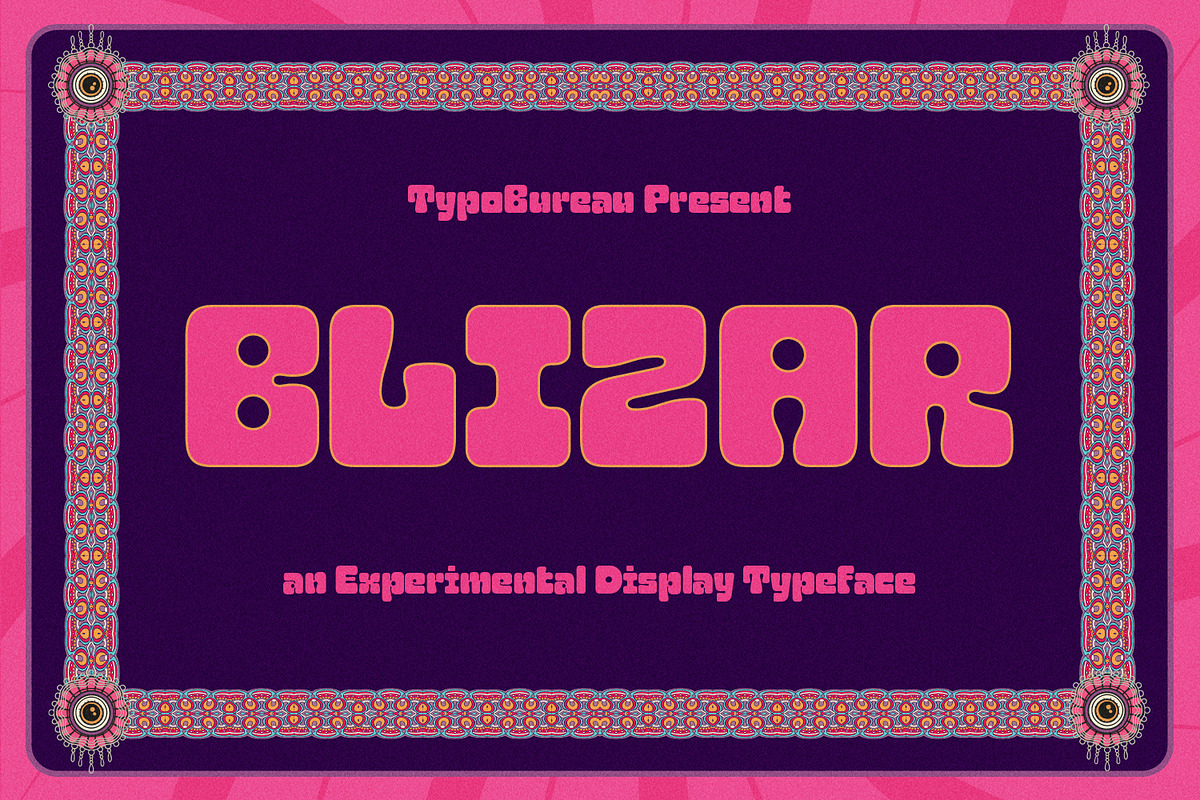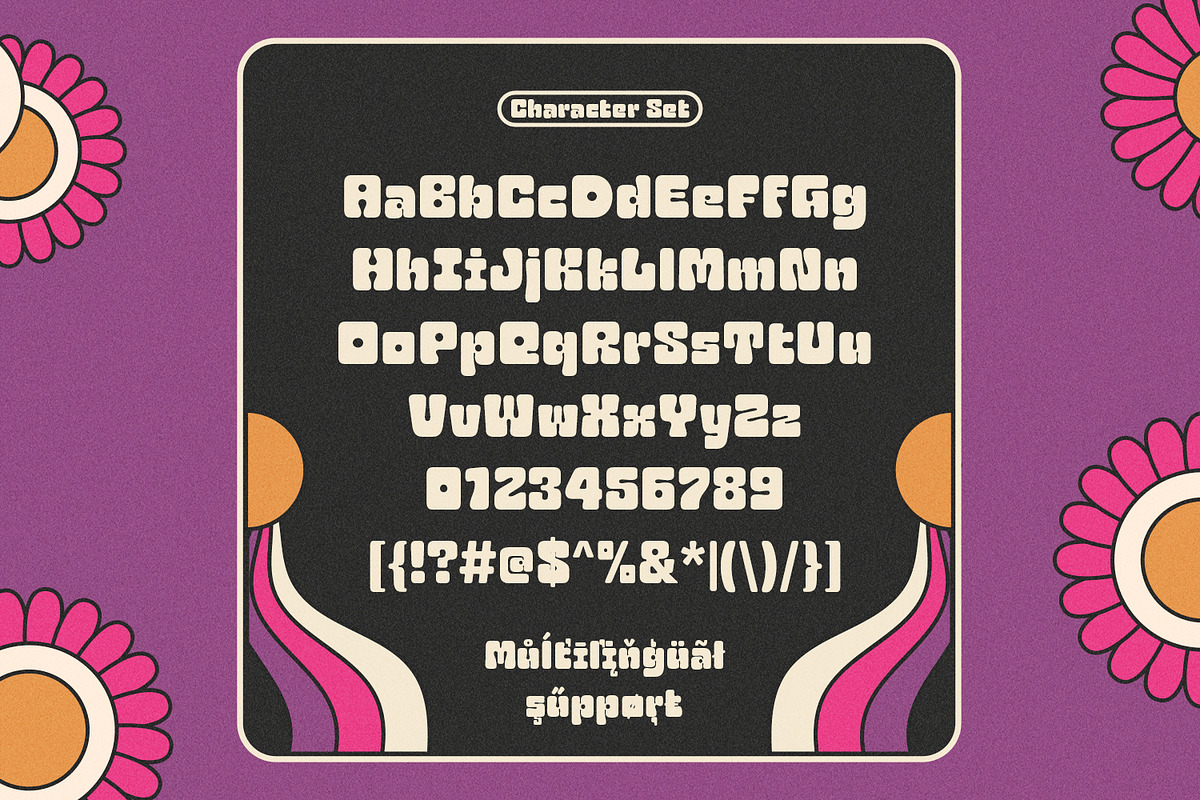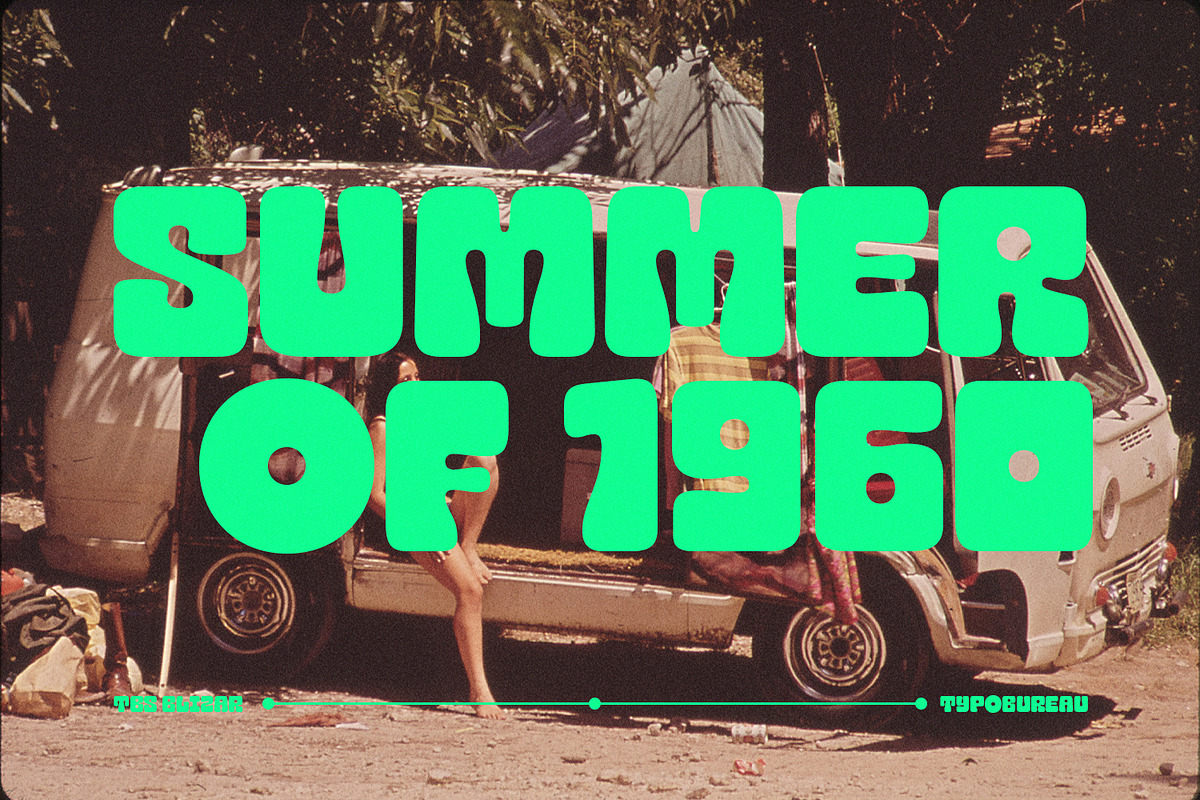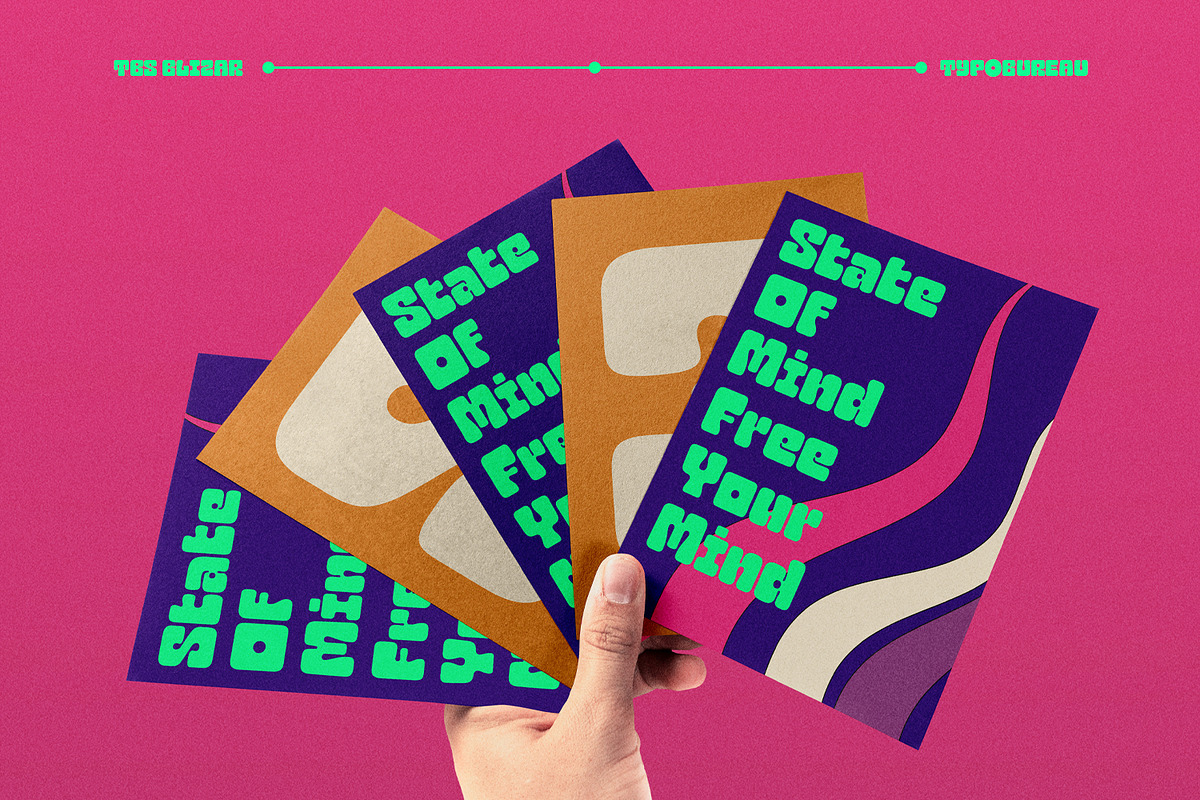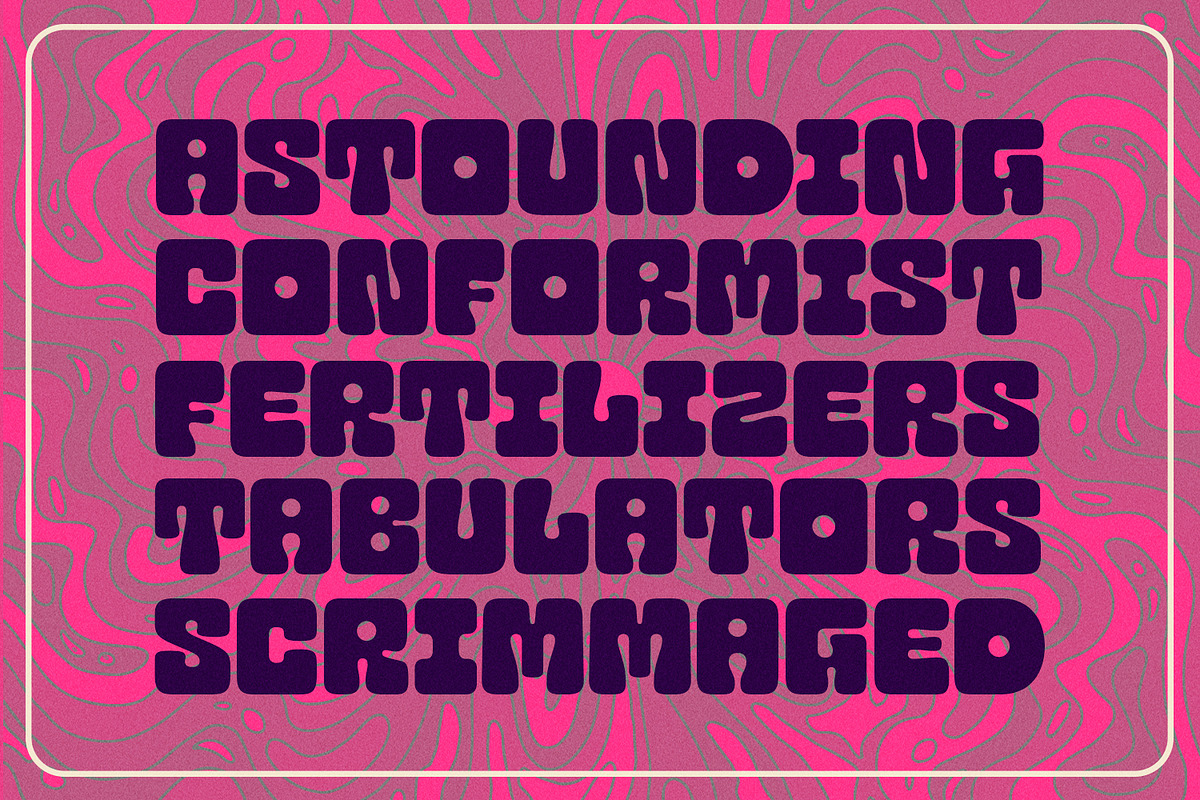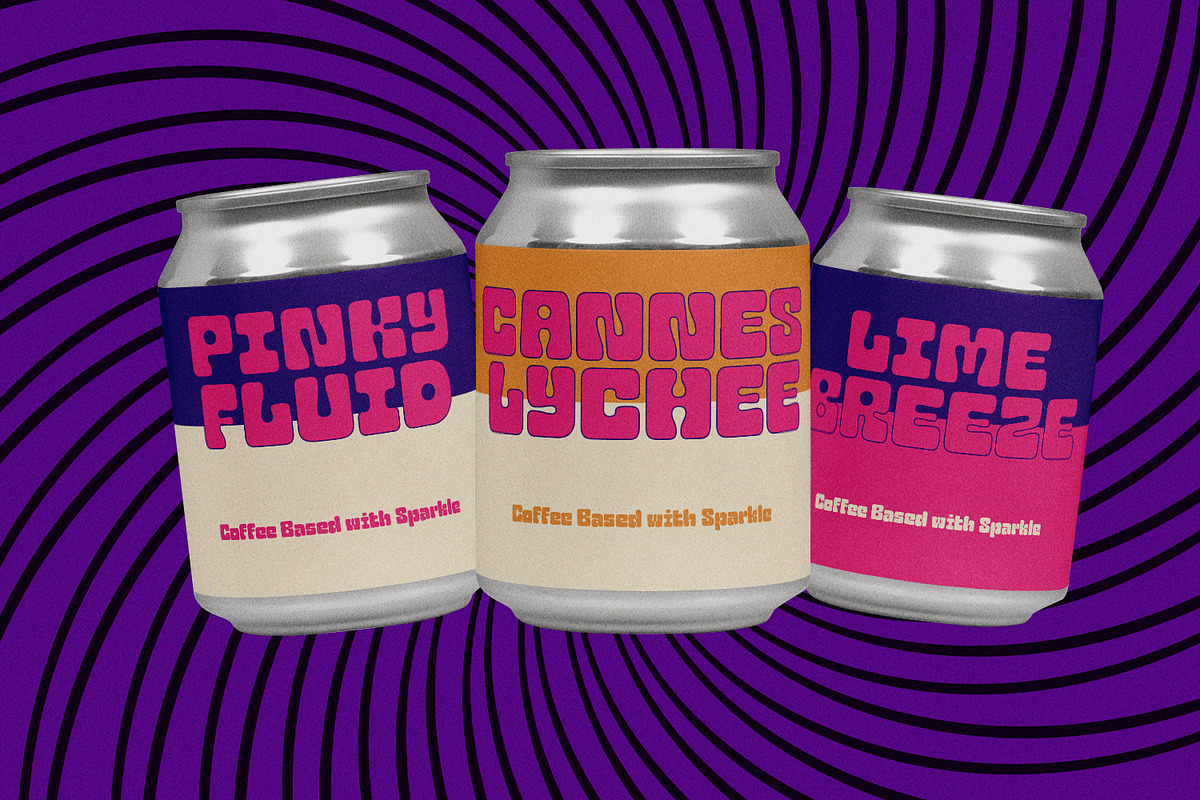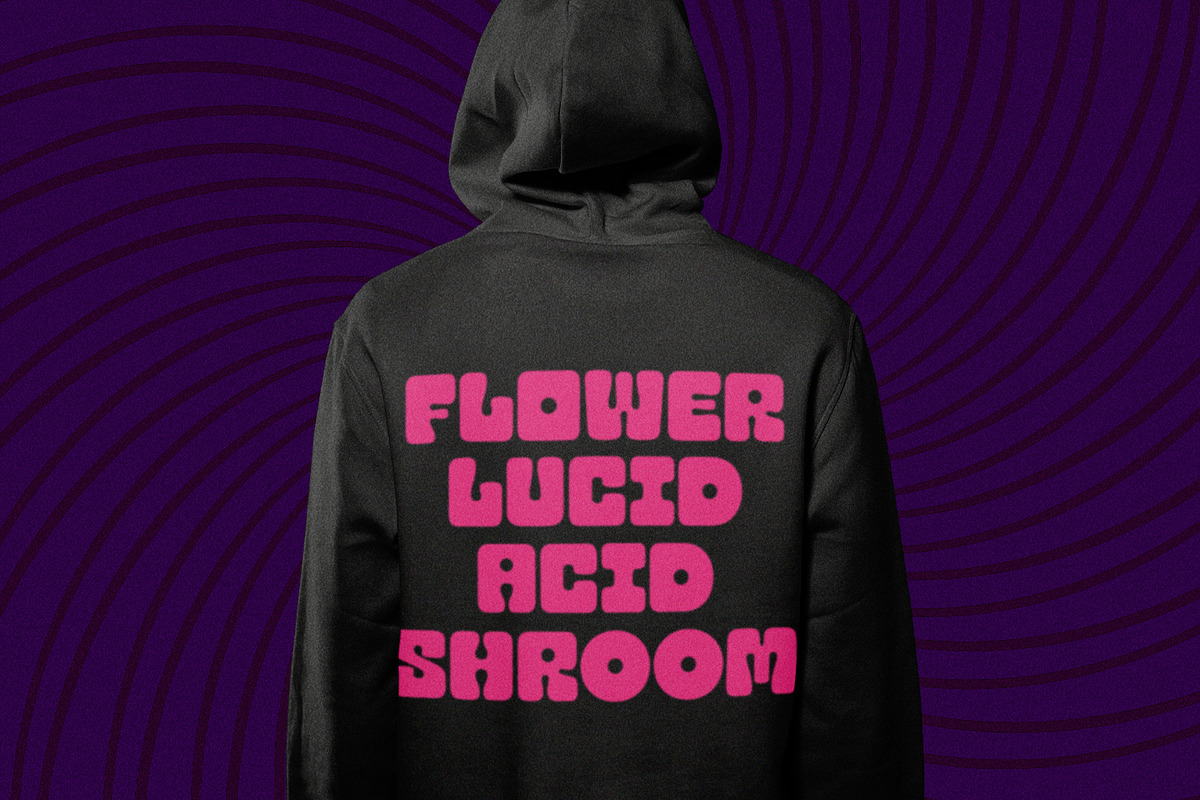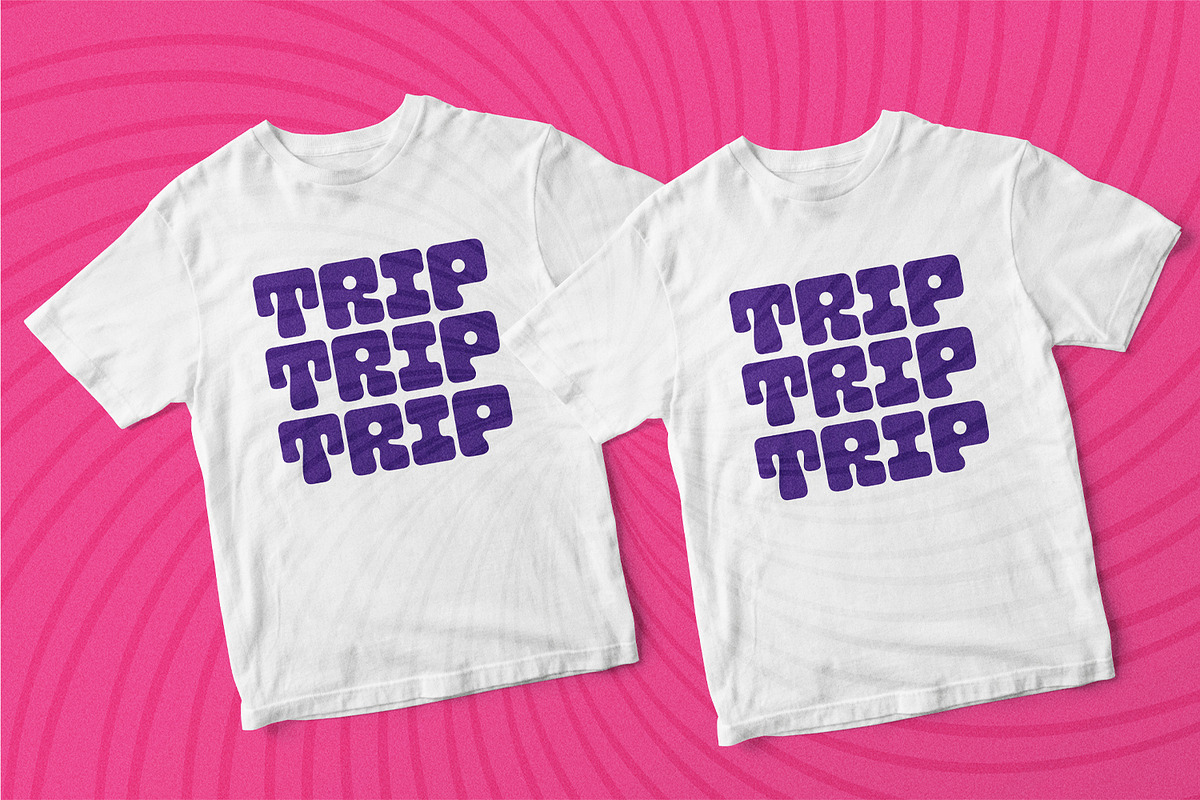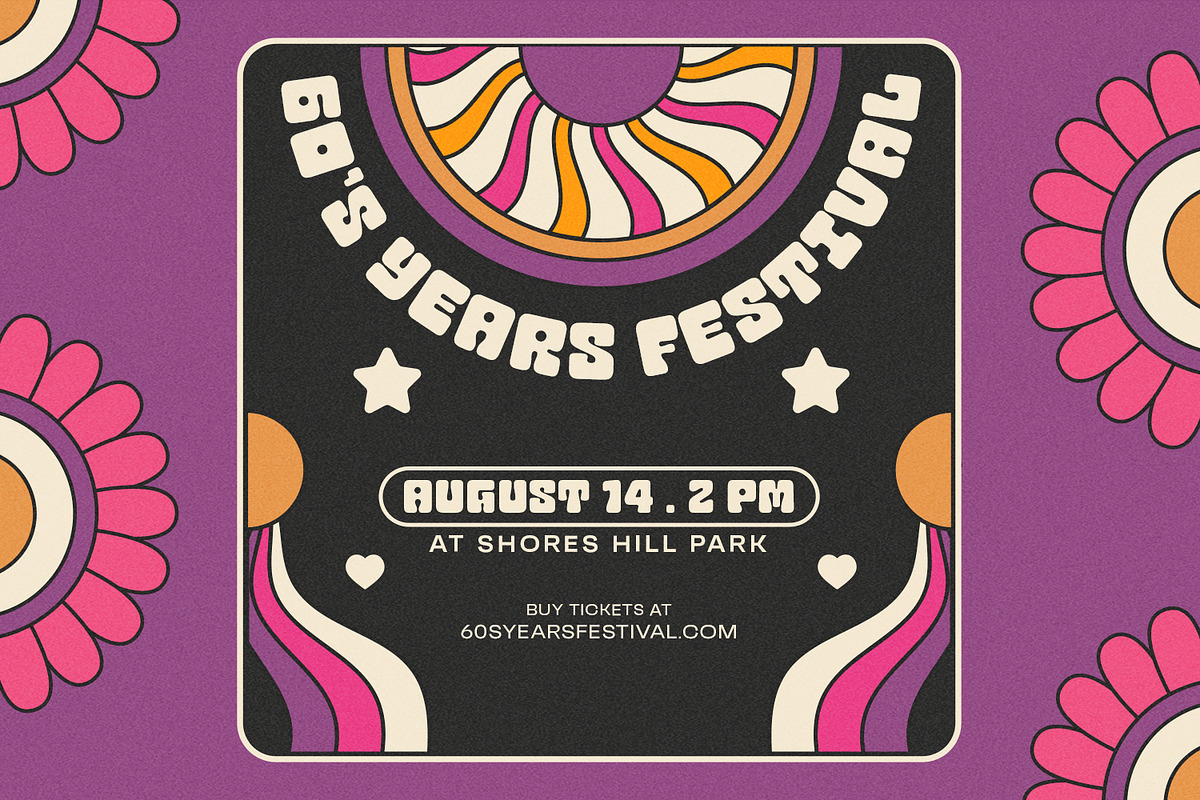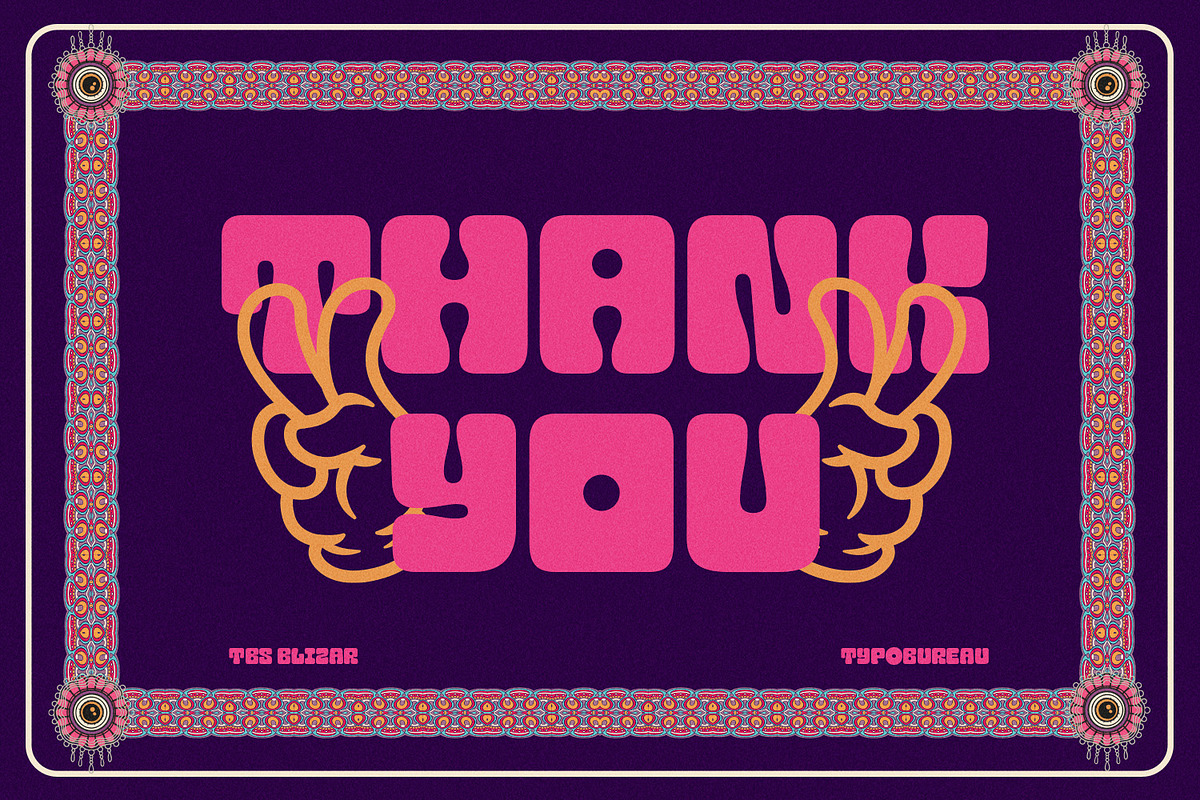
TBS Blizar | Display Font
TBS Blizar is sans serif base an experimental display typeface with a bit psychedelic feel, heavy stroke and soft edges of every glyphs, makes this font looks edgy. Use BLIZAR as a display font so you can use this font to elevate your project to the next level. suit for headliner, packaging, poster, magazine and more. hope you are enjoy with this fun font. cheers!